A logo needs to convey a brand's personality, evoke emotions and create lasting impressions in one simple design. And let's face it, that's not an easy task. Typography is key, and you'll while you want to design your own custom lettering; there's no rule to say you have to. Existing logo fonts might work just as well, and at the very least, they can help get you started thinking about your own type designs (these are quite different to our bumper list of free fonts).
This article delves into 10 fantastic logo fonts that stand out for their versatility, uniqueness and aesthetic appeal. From elegant serifs to modern sans-serifs, each of these typefaces has its own character and charm, offering inspiration for logo projects of all kinds.
01. Bella by Face37
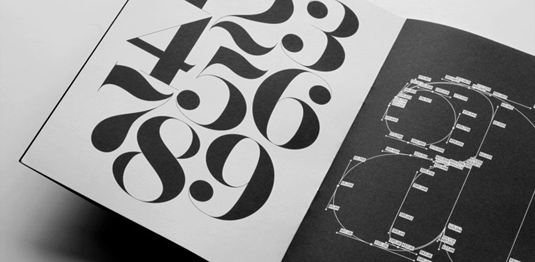
Exclusive to the HypeForType font foundry, Bella is a classical Didot-inspired beauty that suggests the best of Paris and New York in a single package. Broad strokes and slender curves invoke the impact of vintage headlines, while the minimalist 'stencil' version is an exercise in geometrical perfection.
02. Palm Canyon Drive [Deluxe] by Amy Hood
Add some mid-century Californian magic to your logo with this classy monoline script, which comes in three weights. Designed by Amy Hoodo of Hoodzpah Design Co, Palm Canyon Drive is fuelled by post-war optimism and inspired by retro matchbook covers, travel postcards, Tikki bars and Hollywood.
03. Aracne Condensed by Antipixel
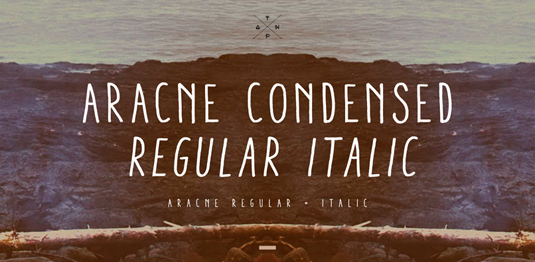
It's caps all the way with Arcane Condensed, a deceptively decorative Antipixel package. Side by side, the four weights give a surprising degree of variety, while the elongated letters and charmingly irregular edges suggest everything from Tim Burton movie credits to the label of your skinniest jeans.
04. Breakers Slab by Kostic
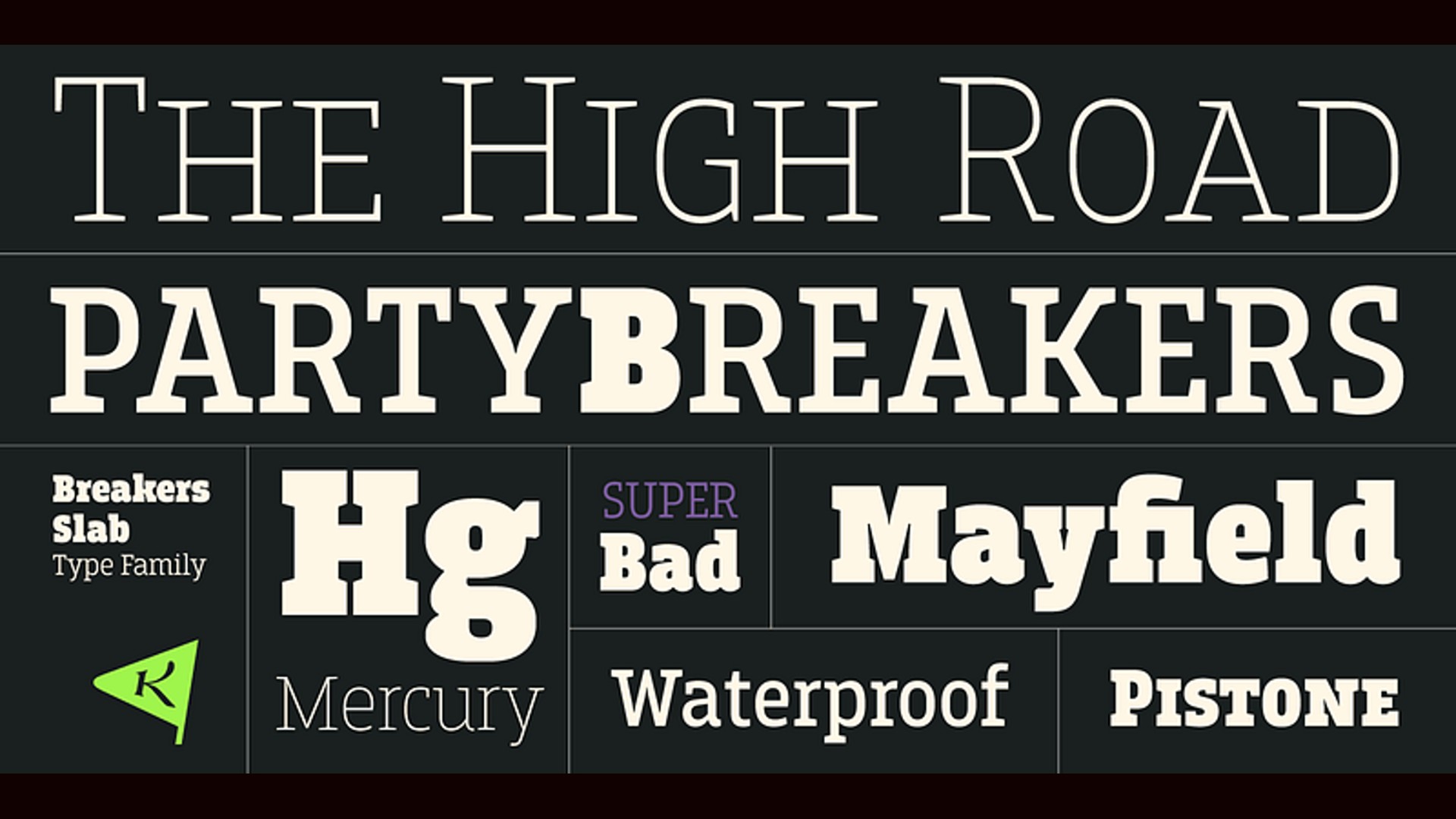
Breakers Slab is a serious slab-serif that keeps its cool across six styles, from Thin right up to Ultra black. Designed by Nikola Kostić and Zoran Kostić from Kostic Type Foundry, this quietly confident companion to Breakers Sans is perfect on the page and raring to go for your logo designs.
05. Al Fresco by Laura Worthington
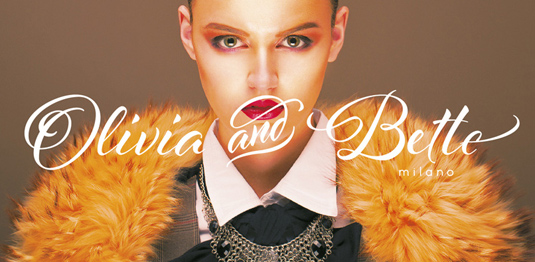
Fashion conscious but not exclusive, Al Fresco offers inspiring emotions to a designer with a logo to style. European flair and romance abound in the main face and the accompanying swashes and ligatures. Designer Laura Worthington used the word 'irresistible' as a template and this theme shines through.
06. Authority by RetroSupply
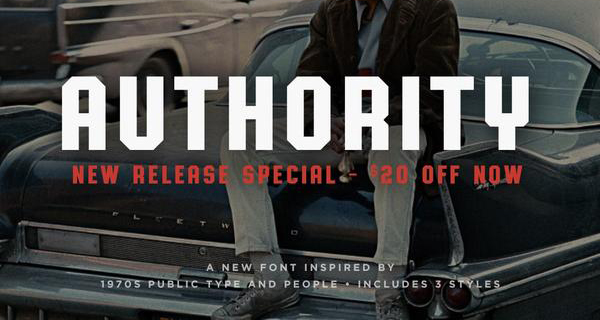
Inspired by New York government-designed fonts of the 1970s, Authority has a mildly condensed feel with squared corners. The family includes three fonts (Standard, Rounded and Distressed) that simulate natural raging in public spaces, and six different styles. There's also support for 75 Western languages.
07. Thirsty Rough by Yellow Design Studio
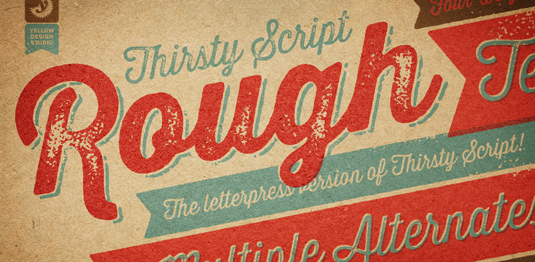
Seeking the authentic feel of letterpress? Then check out the warm and weathered textures of Thirsty Rough. This font is highly customisable, with four versions of every weight, ranging from very light to heavy distress. You also get shadow layers and a set of matching texture pieces for free.
08. Port by Joao Oliveira
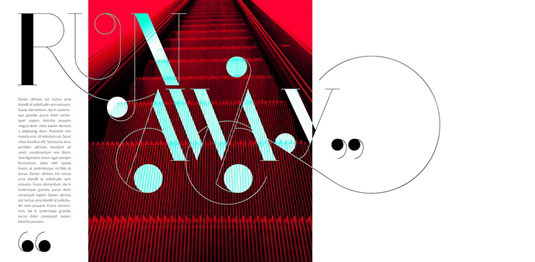
Port is an experimental typeface that melts the straight lines and strong contrasts of Didone typefaces with the elegant lines of calligraphy in a geometric way. The result is exuberant characters with geometric swashes that can be combined in countless ways; endless inspiration to bring your logo to life.
09. Sobek by Thinkdust
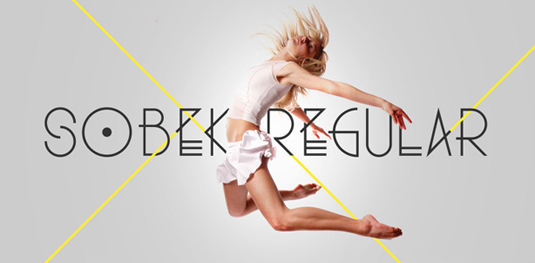
Sobek combines sharp corners, excessive lines and geometrically circular curves into a font that’s elegant and appealing. Featuring a dazzling array of acute angles and cute rounds, each character is a successful experiment all its own; making this something like a Swiss Army knife for your logo font needs.
10. TJ Evolette A by TypeMe
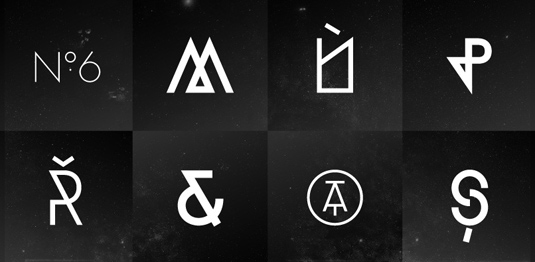
TJ Evolette A is geometric grotesque and all-caps display family with seven weights. You also get one basic glyph set, and two integrated, stylistic sets for the whole alphabet. Design-wise it can be as streamlined or extravagant as you like, with intricate alternates and stylistic sets providing a palette of logo ideas.